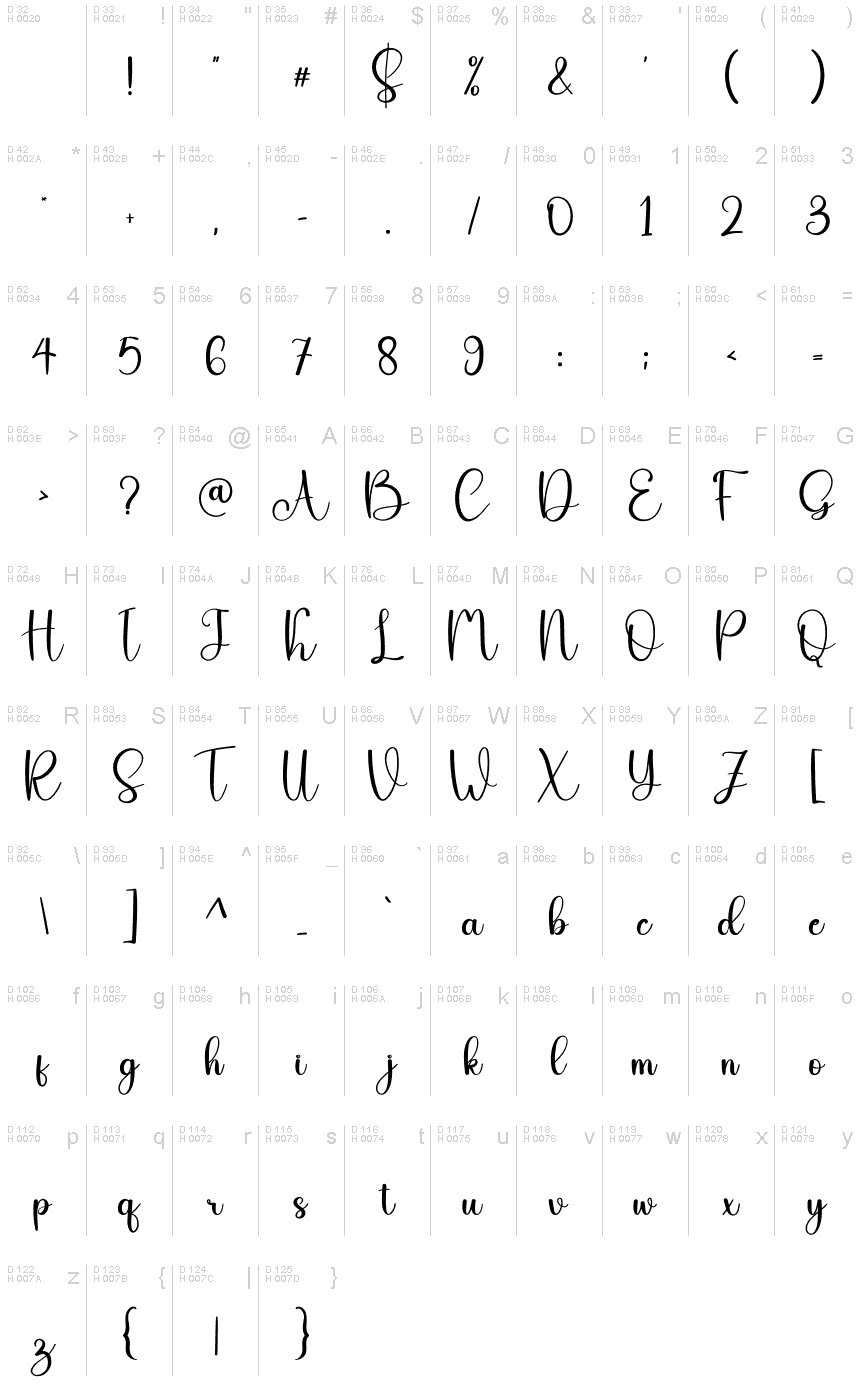
Romania
Romania, a captivating semi-light font by Harlek Studio, invites you into the realm of elegance and enchantment. With its beautiful handwritten style, Romania adds a touch of sophistication to wedding invitations, greeting cards, and personalized stationary.
Its delicate curves and graceful strokes make it perfect for creating romantic quotes that evoke emotions in social media posts and blog graphics. Whether used in branding or packaging design, this font effortlessly captures attention with its timeless charm.
Romania is your go-to choice for projects that require a touch of refined beauty and an unforgettable aesthetic.